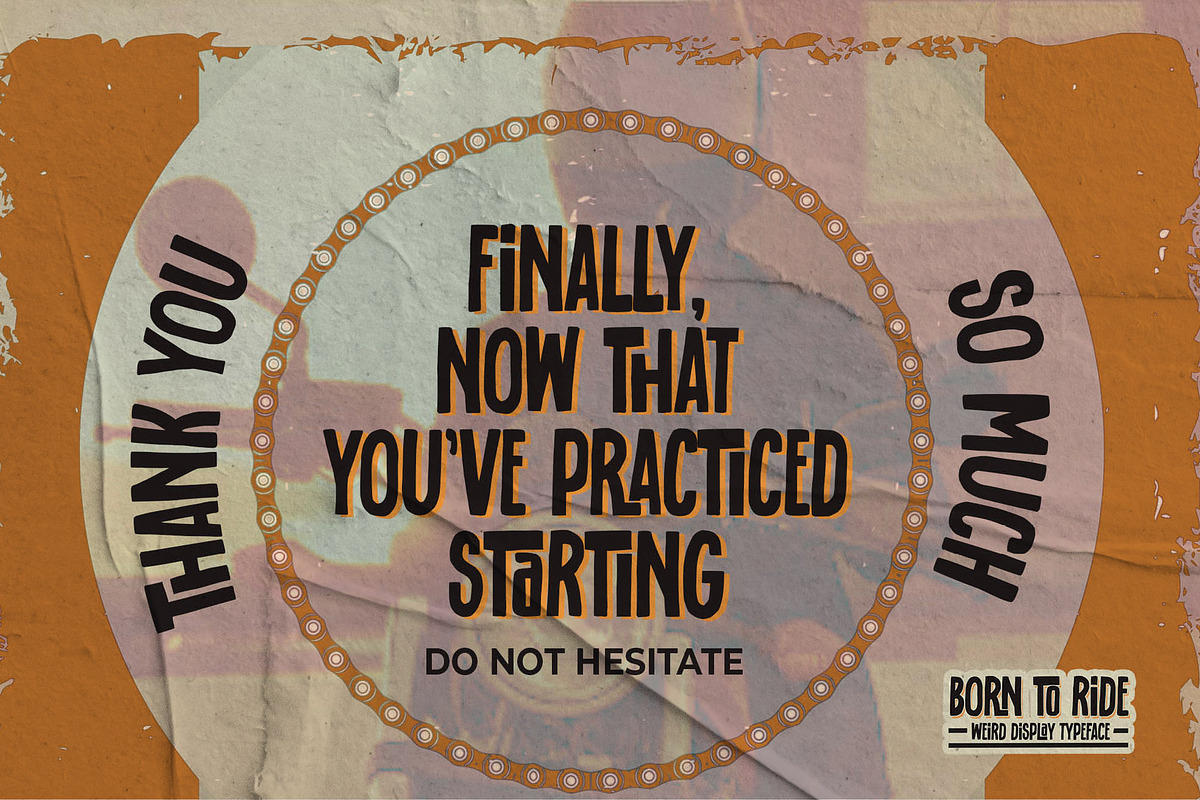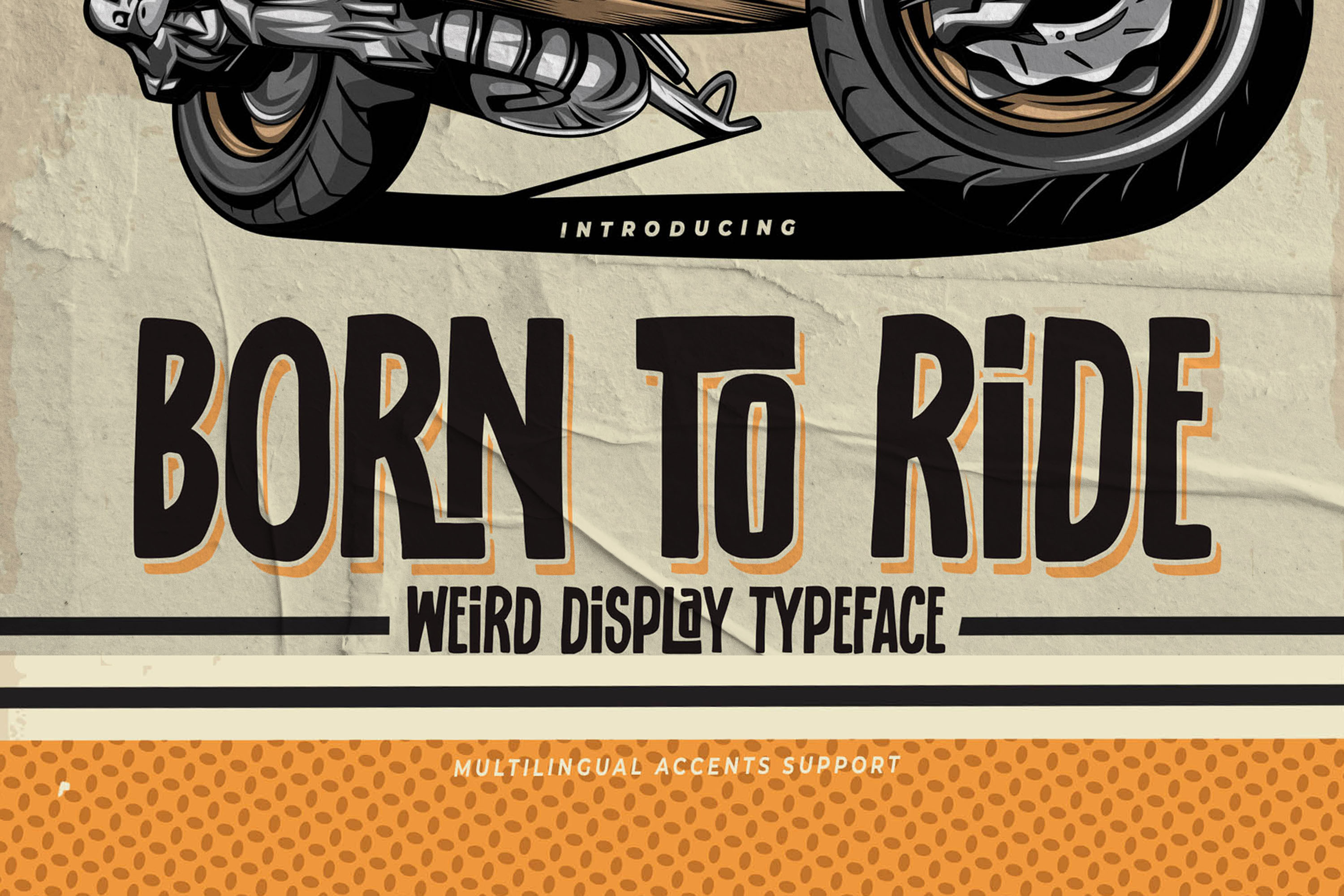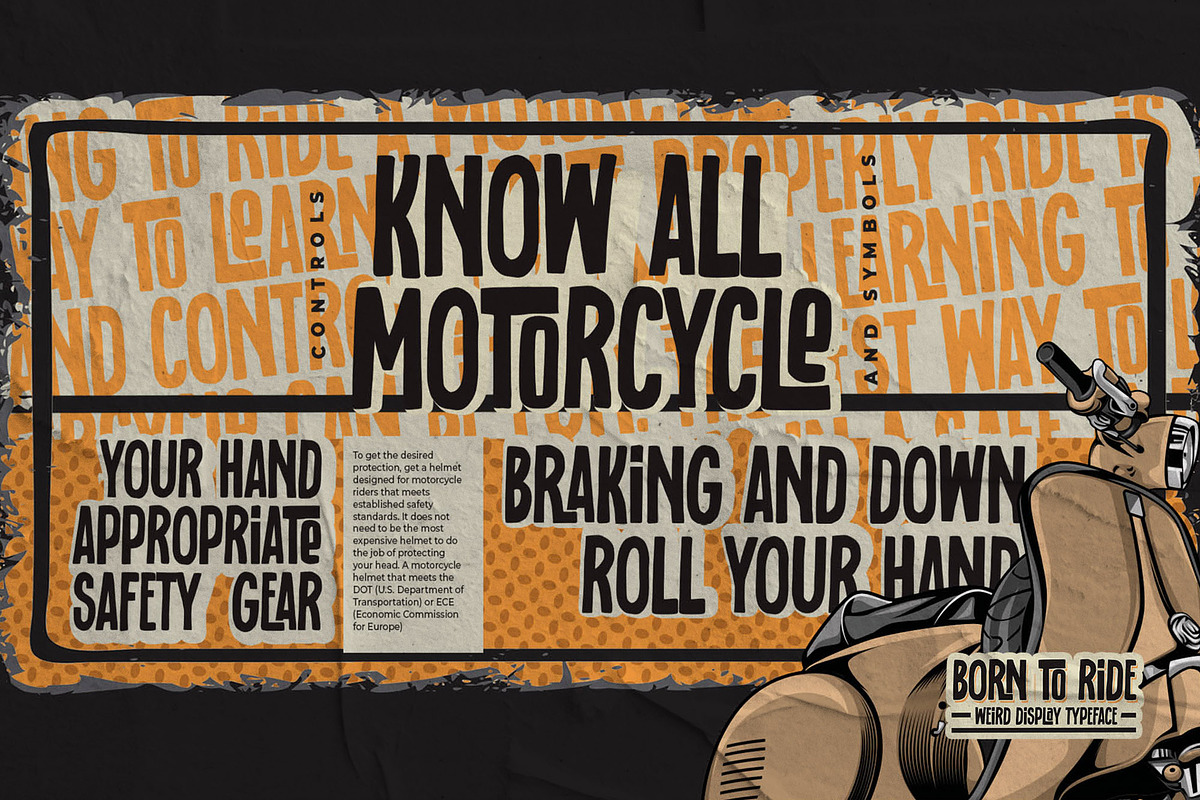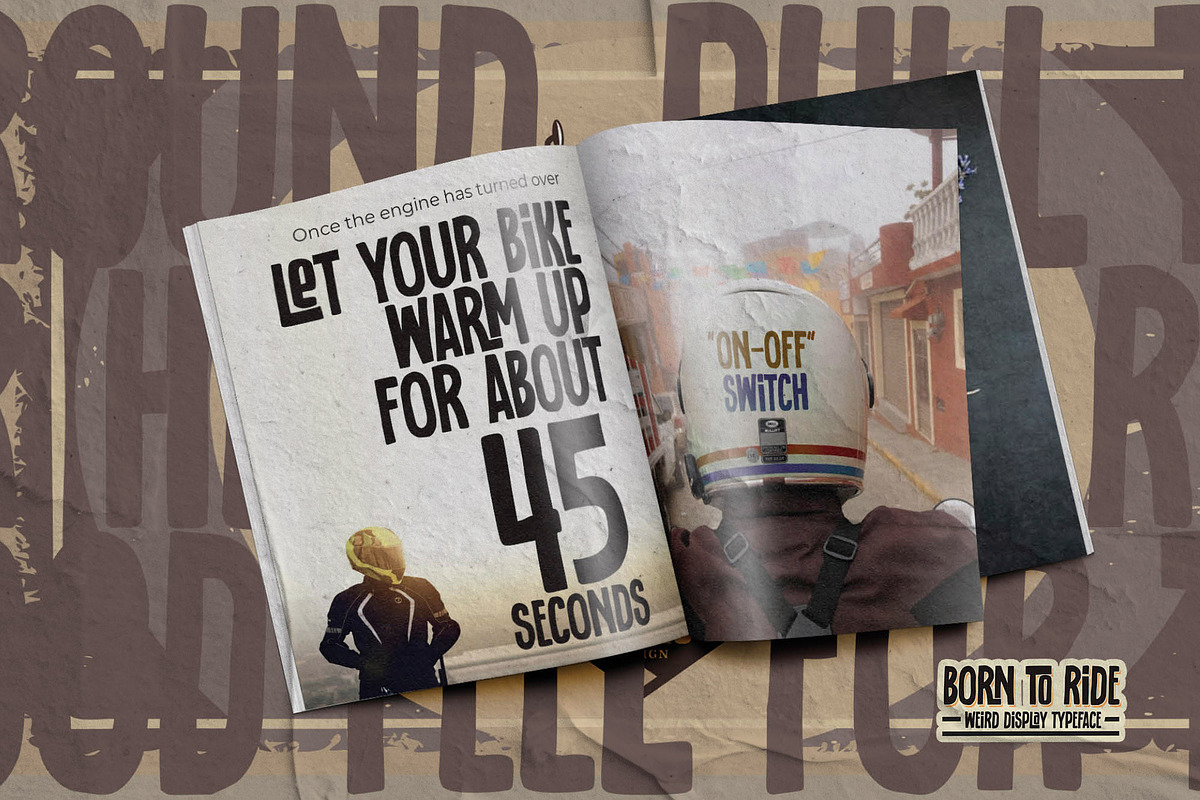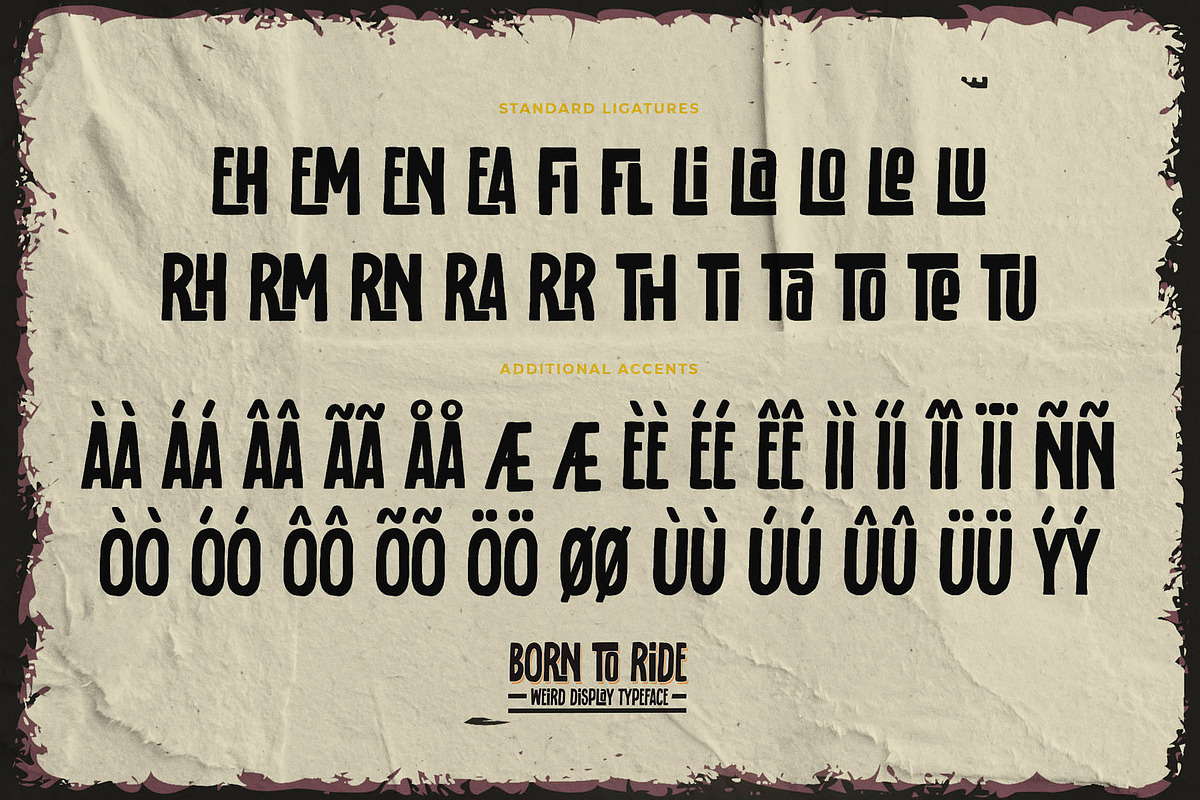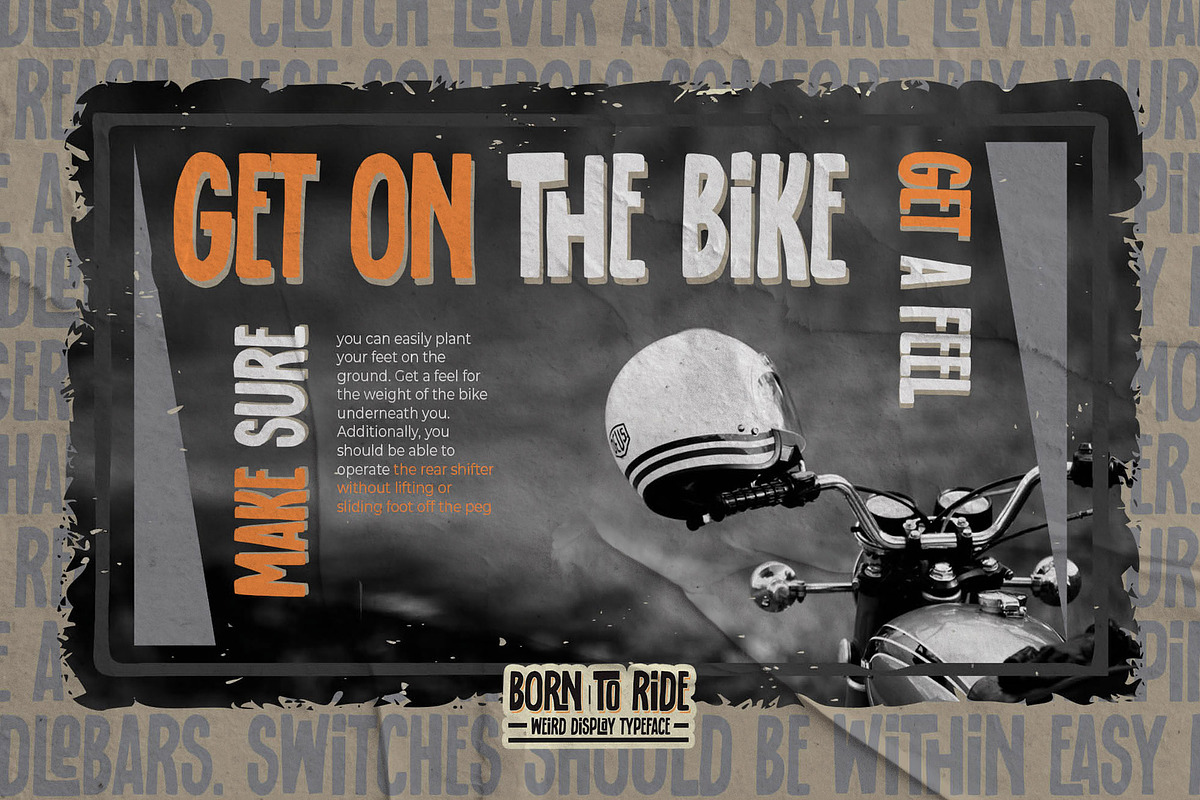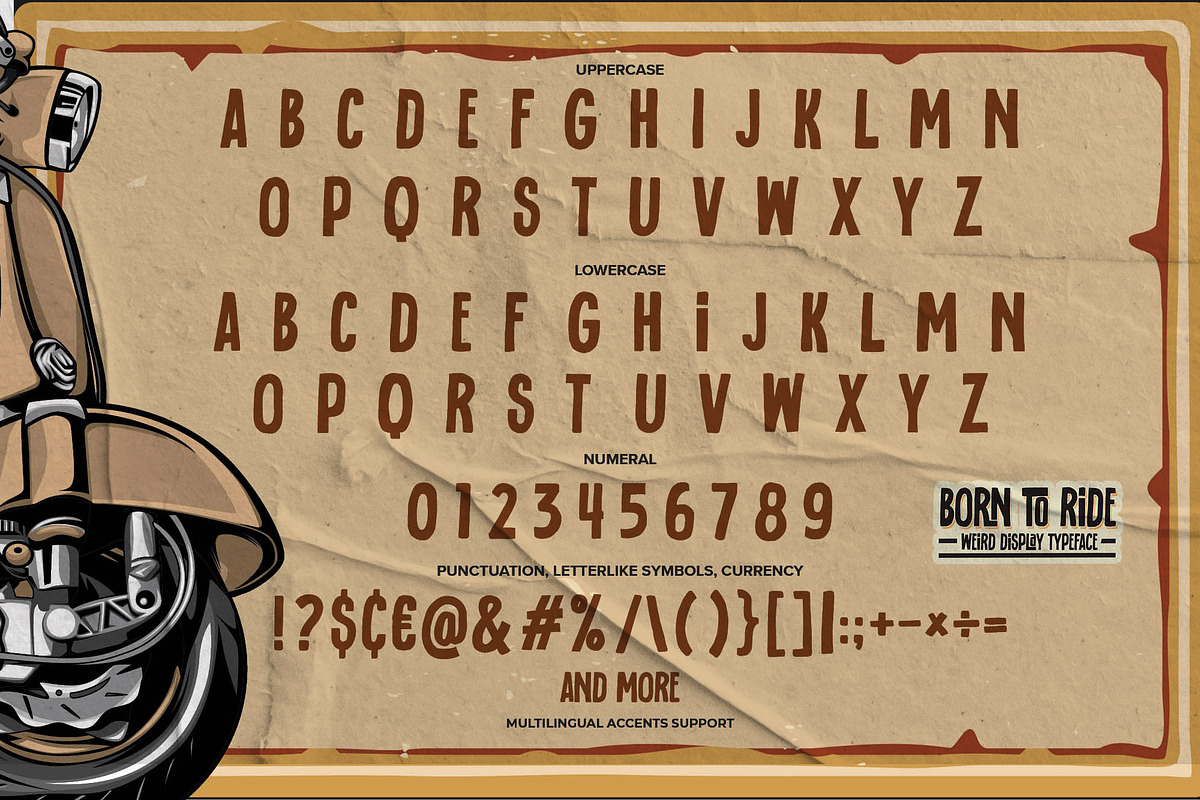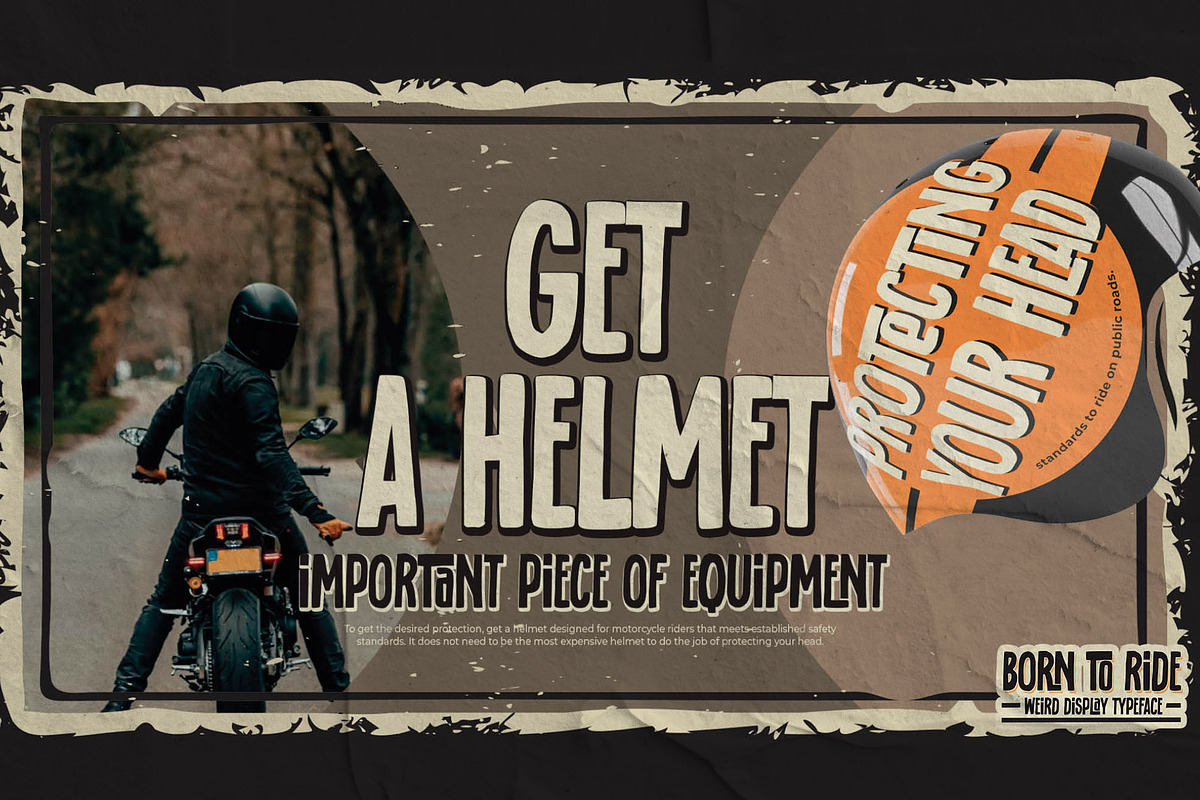
BORN TO RIDE- Weird Display Typeface
Here comes a New font, Introducing BORN TO RIDE It's Weird Display Typeface is a Natural Brush Style and Authentic classy style, this font is great for your creative projects such as watermark on photography, and perfect for logos & branding, invitation,advertisements,product designs, stationery, wedding designs,label ,product packaging, special events or anything that need handwritting taste.
BORN TO RIDE is a Brush Hand Drawn feel. This handmade font will make your design has a beautiful natural touch for each details. It is perfect for any design project as Invitation,logo, book cover, craft or any design purposes,photos, photography overlays, signs, window art, scrapbooking, tags and so much more! This font is PUA encoded which means you can access all of the magical glyphs with ease! It also features a wealth of special features including You can activate 22Ligatures OpenType panel.
- Ligatures glyphs